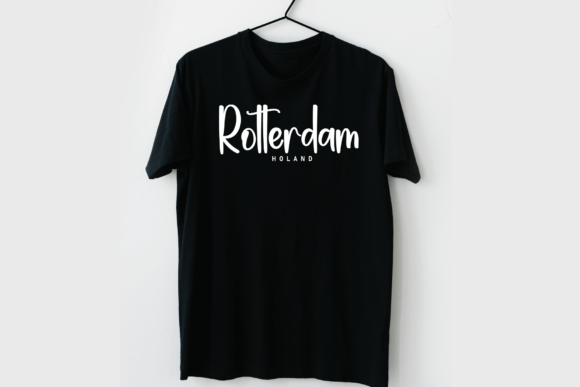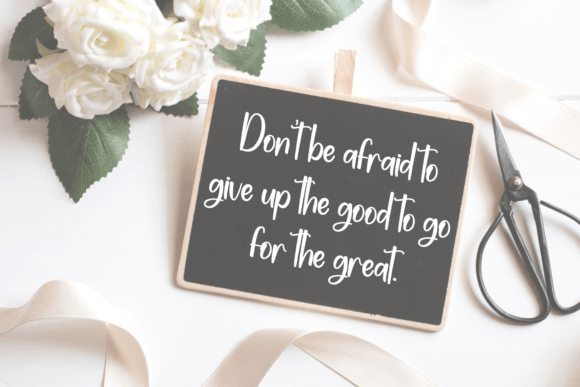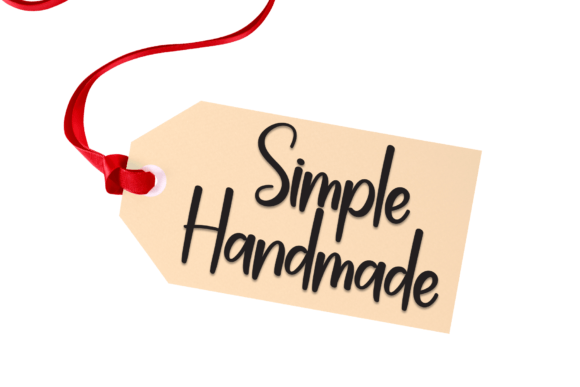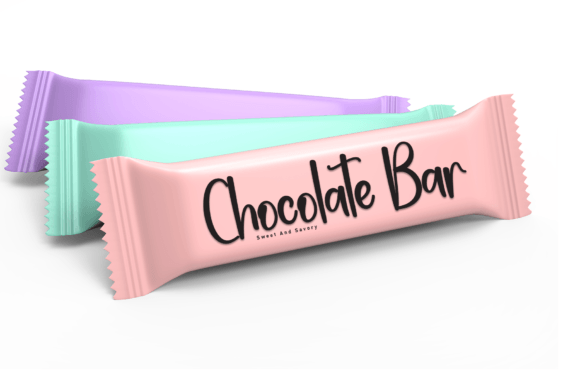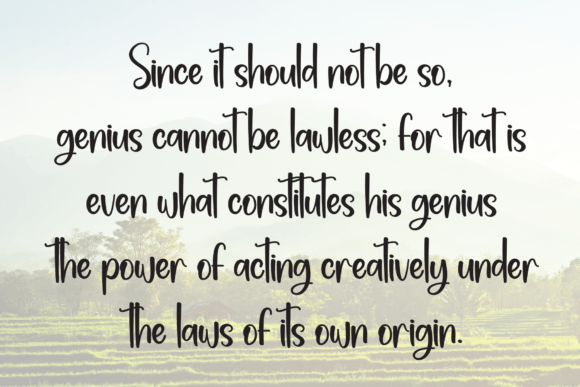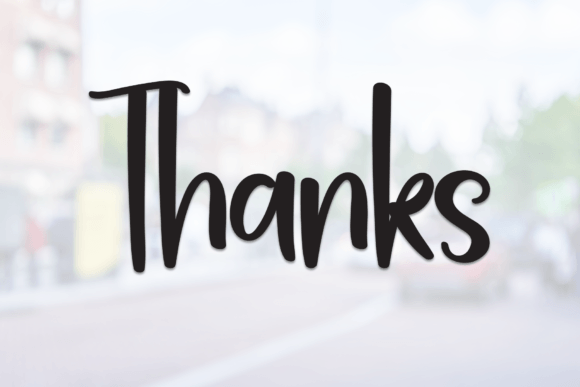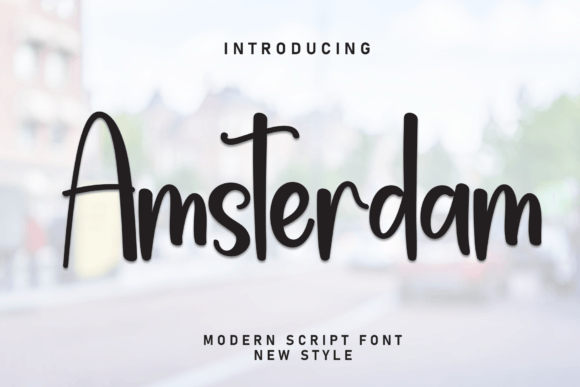
Introducing Amsterdam Font: Elevate Your Designs with Elegance and Sophistication
In the world of typography, few fonts manage to capture the essence of elegance and sophistication as effectively as the Amsterdam Font. This stylish and incredibly elegant script font has become a favorite among designers and crafters looking to add a touch of refinement to their projects. Whether you’re working on wedding invitations, thank you cards, quotes, greeting cards, logos, business cards, or any other design that requires a handwritten touch, Amsterdam Font is the perfect choice.
What Makes Amsterdam Font Stand Out?
Amsterdam Font is distinguished by its unique blend of classic elegance and modern flair. Its flowing script letters exude a sense of luxury and sophistication, making it an ideal choice for designs that demand a high level of refinement. The font’s versatility is another one of its standout features, allowing it to be used across a wide range of applications, from formal event invitations to business branding materials.
Key Features of Amsterdam Font
- Elegant Script Design: Amsterdam Font boasts a beautifully designed script that adds a touch of elegance to any design.
- Versatility: Suitable for a wide range of projects, including wedding invitations, thank you cards, quotes, greeting cards, logos, and business cards.
- Handwritten Touch: Perfect for designs that require a personal and handwritten feel.
- Easy to Read: Despite its elegant and cursive nature, Amsterdam Font remains highly legible, making it practical for use in various contexts.
Applications of Amsterdam Font
The applications of Amsterdam Font are vast and varied. Here are some of the most popular uses:
Wedding Invitations and Stationery
Amsterdam Font is a popular choice for wedding invitations, save the dates, and other stationery. Its elegant and sophisticated design sets the tone for a memorable and stylish event.
Business Branding
For businesses looking to establish a refined and professional image, Amsterdam Font can be used in logos, business cards, and marketing materials.
Digital and Print Media
From social media graphics to print advertisements, Amsterdam Font can add a touch of elegance and sophistication to any digital or print media.
Tips for Using Amsterdam Font Effectively
To get the most out of Amsterdam Font, consider the following tips:
- Pair with Complementary Fonts: Combine Amsterdam Font with simpler fonts to create visual interest and hierarchy in your designs.
- Adjust Letter Spacing: For optimal readability, adjust the letter spacing according to the size and application of the font.
- Use it Sparingly: While Amsterdam Font is elegant and sophisticated, using it sparingly can make it more impactful.
Amsterdam Font is a versatile and elegant script font that can elevate your designs to new heights of sophistication and refinement. Whether you’re a designer, crafter, or DIY enthusiast, this font offers endless possibilities for creating beautiful and memorable projects. With its flowing script letters, classic elegance, and modern flair, Amsterdam Font is sure to become a staple in your design toolkit.